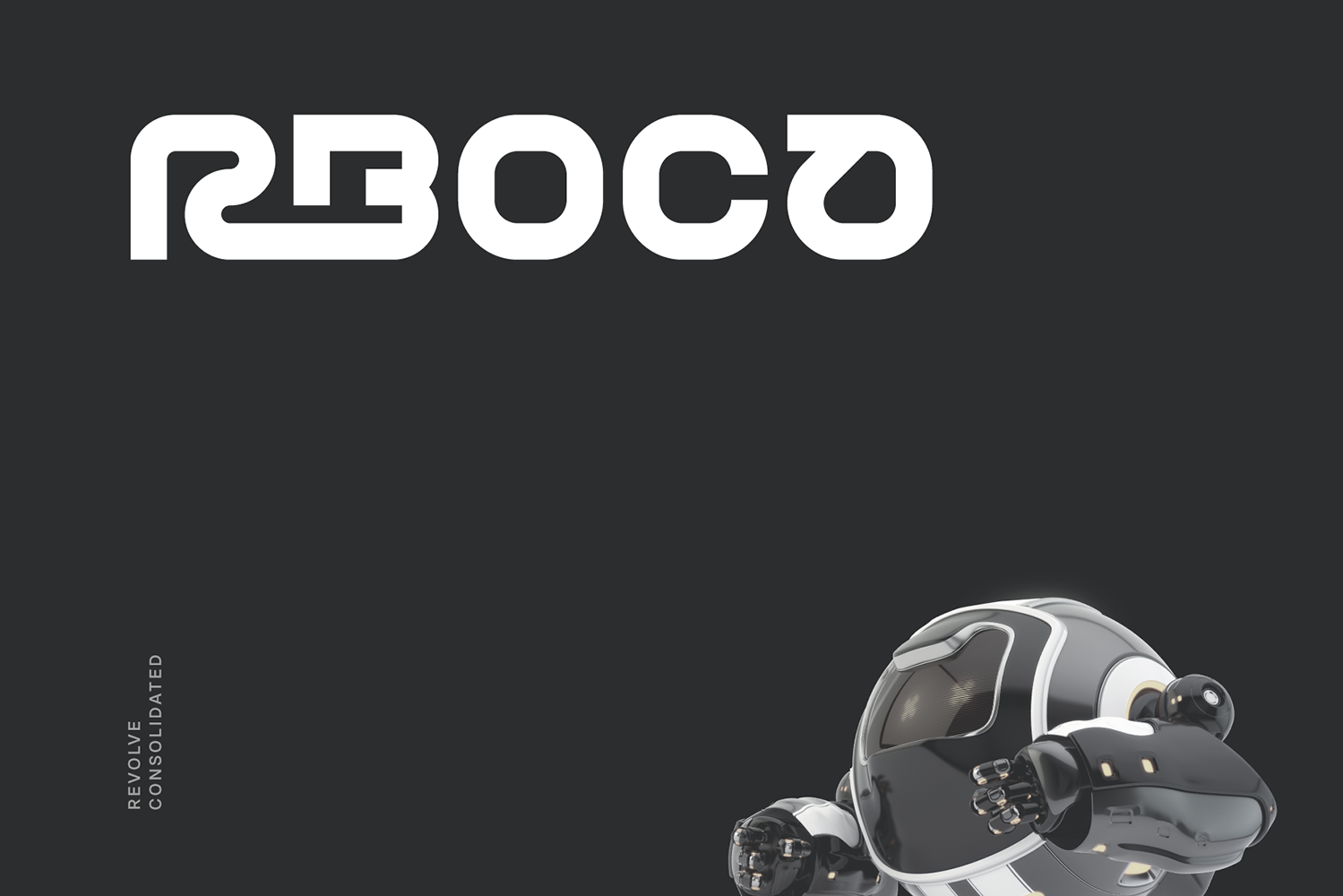
Rboca Futuristic Tech Unicase Font
Rboca is a revolve consolidated unicase tech sans apt for headline, editorial, branding, packaging, printed materials, hud typographic and user interface applications. Ultra modern character blend with simplicity of smooth rigid curves, subliminal contour and monoline interpretation introduced futurism sensuality through restraint form. 150+ glyphs with ligatures and fractions provided in opentype .otf and .woff format.